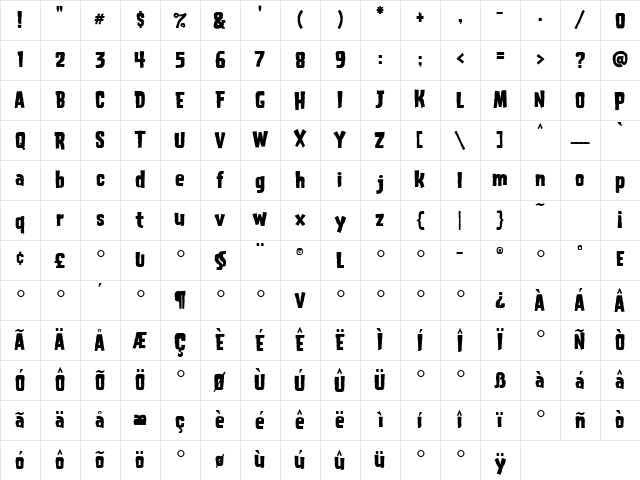
Complete HouseofTerror Medium glyph index. Displaying only characters natively supported by HouseofTerror Medium font.
HouseofTerror is a composed and adaptable typeface that performs quietly and consistently across a wide range of design contexts.